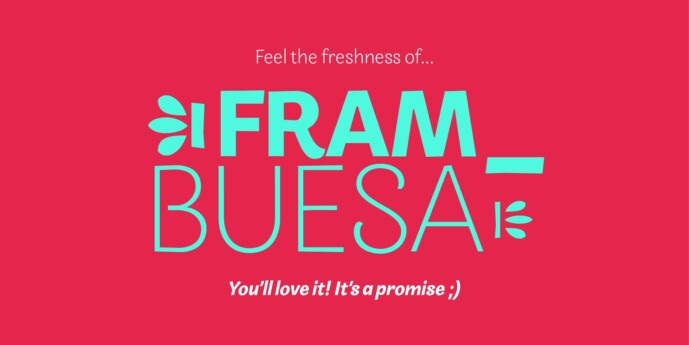
Frambuesa Font Family is a half humanist-half geometric sans serif typeface that merges decorative curves with straight lines looking for a perfect balance. As pairs of opposites define harmony in nature, organic versus geometric are the foundations to this new font. The result is a solid, somewhat romantic, nostalgic type program based on the rhythm of a natural melody.
Frambuesa can’t hide its family genetics. Structure and proportions come from Elisetta, her older sister. Regular and italic variables feel comfortable in many contexts and are useful for both texts and large title compositions. All seven weights are carefully adjusted to achieve smooth transitions between one and the other with high levels of readability in complex applications.